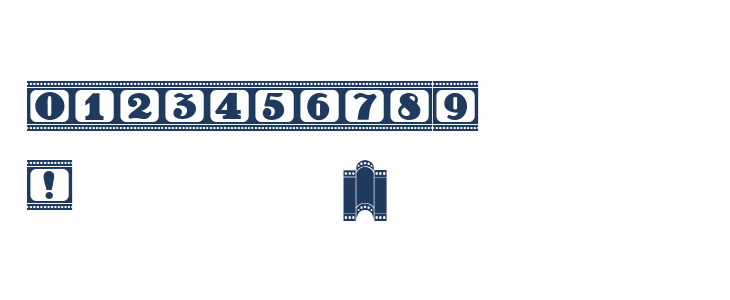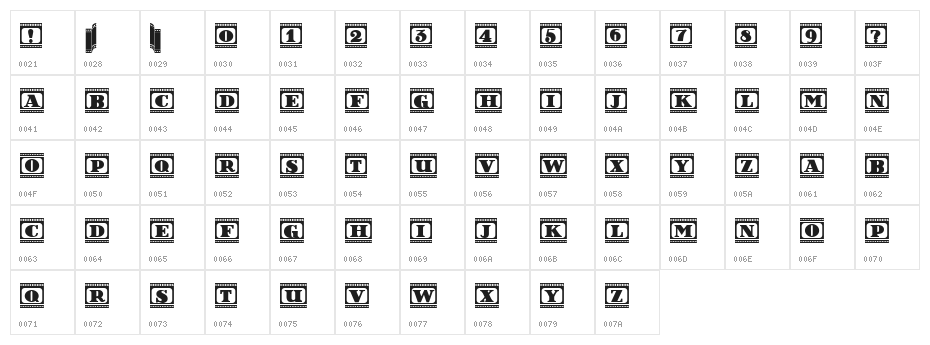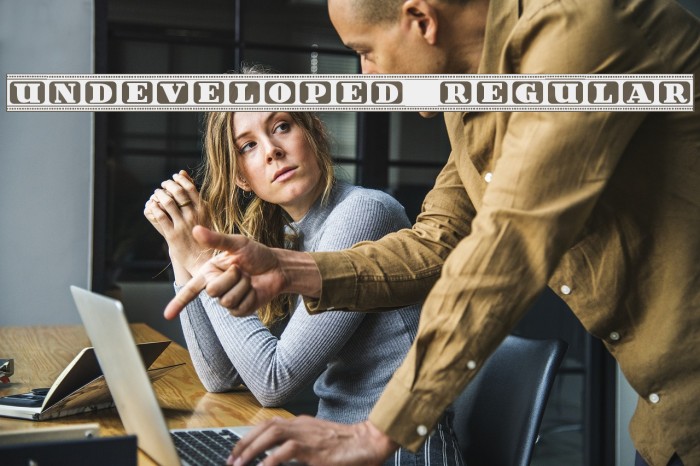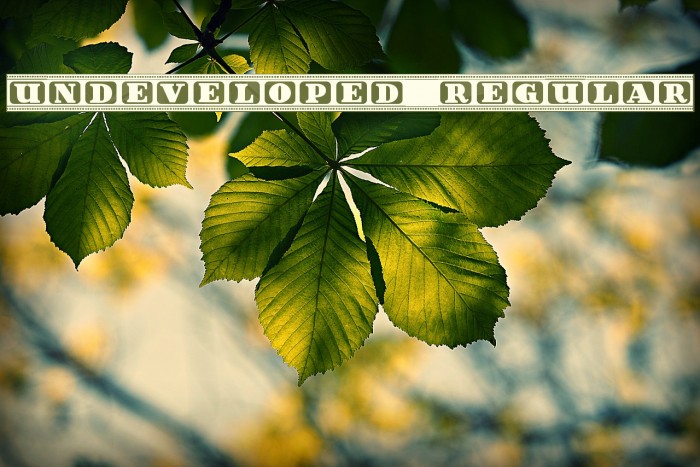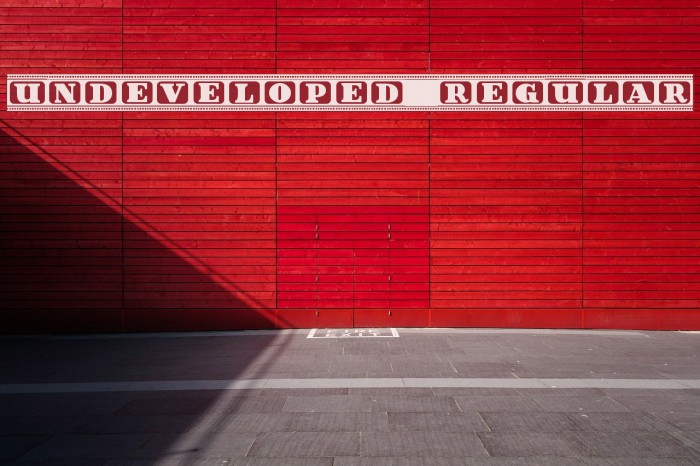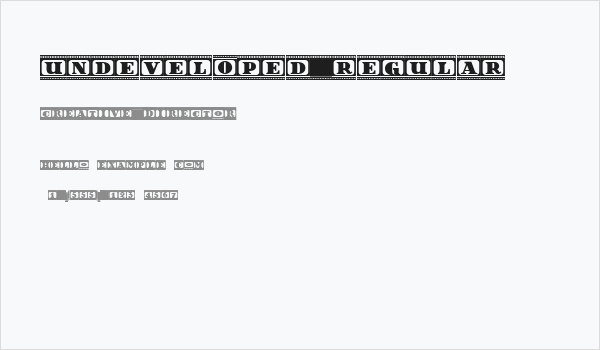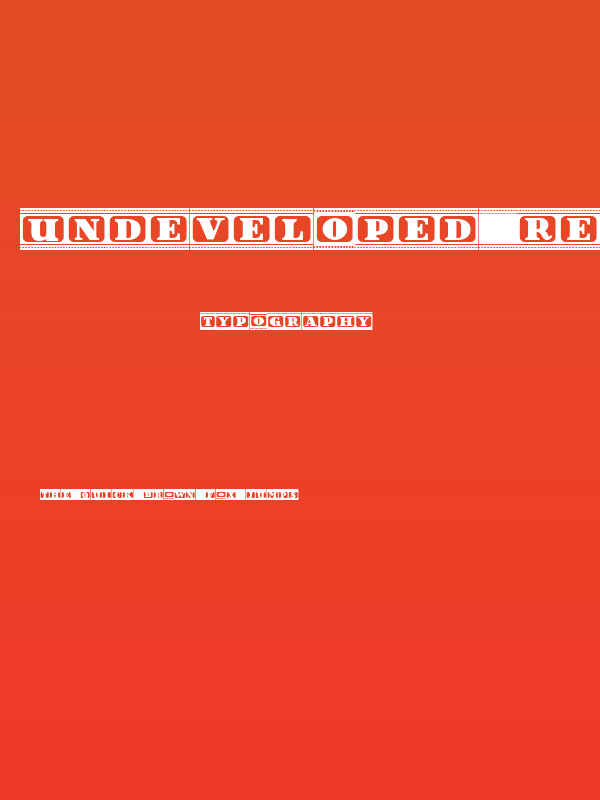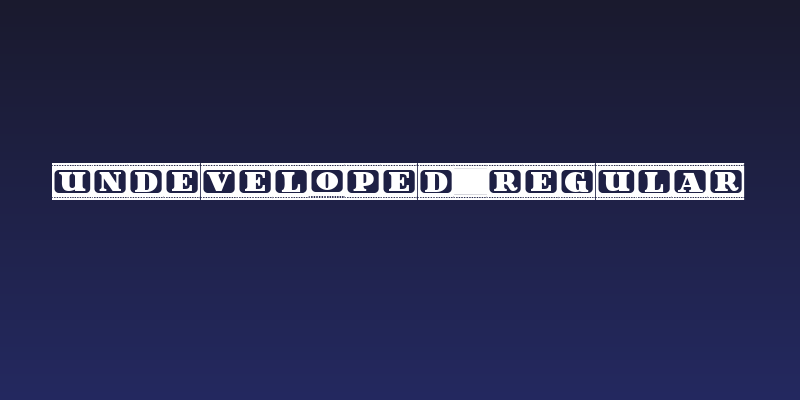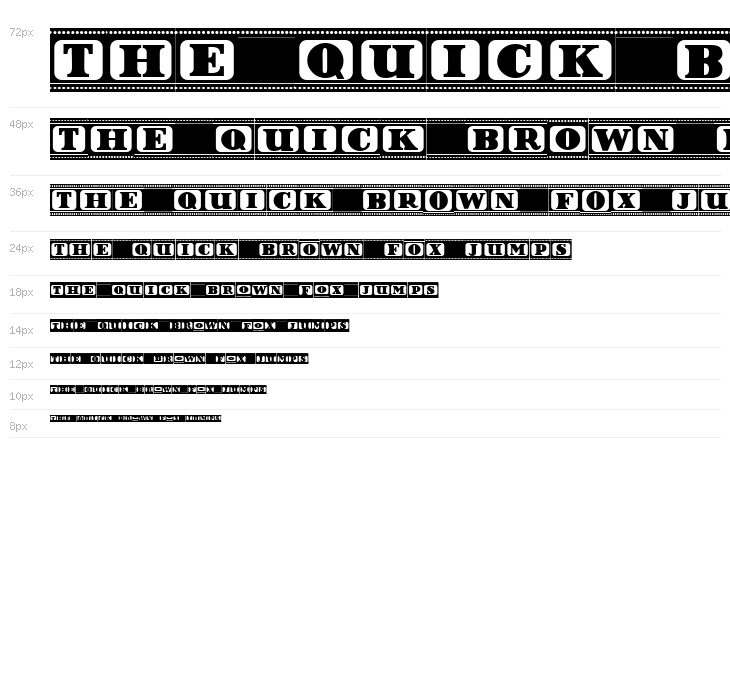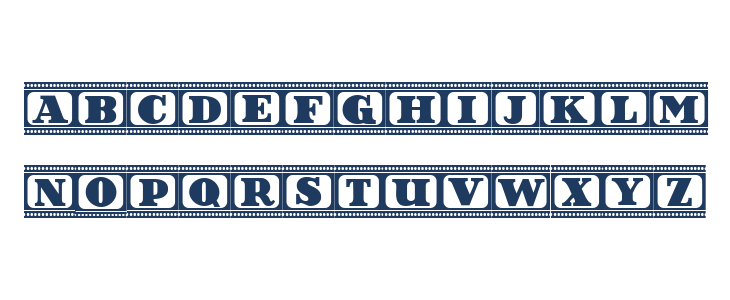
Undeveloped Regular Font
Undeveloped Regular Description
This font features a unique design where each character is enclosed within a filmstrip frame, evoking a cinematic or vintage photography theme. The letters and numbers are bold and capitalized, with a consistent width and height, creating a uniform appearance. The filmstrip border adds a decorative touch, making it ideal for projects that require a nostalgic or creative flair. The characters are well-defined, with high contrast between the black background and the white letters, ensuring readability while maintaining a playful and artistic aesthetic.
| Overall Style | Vintage, Decorative |
| Proposed Projects | Ideal for movie posters, film festival promotions, vintage photography exhibitions, or any creative project needing a cinematic touch. |